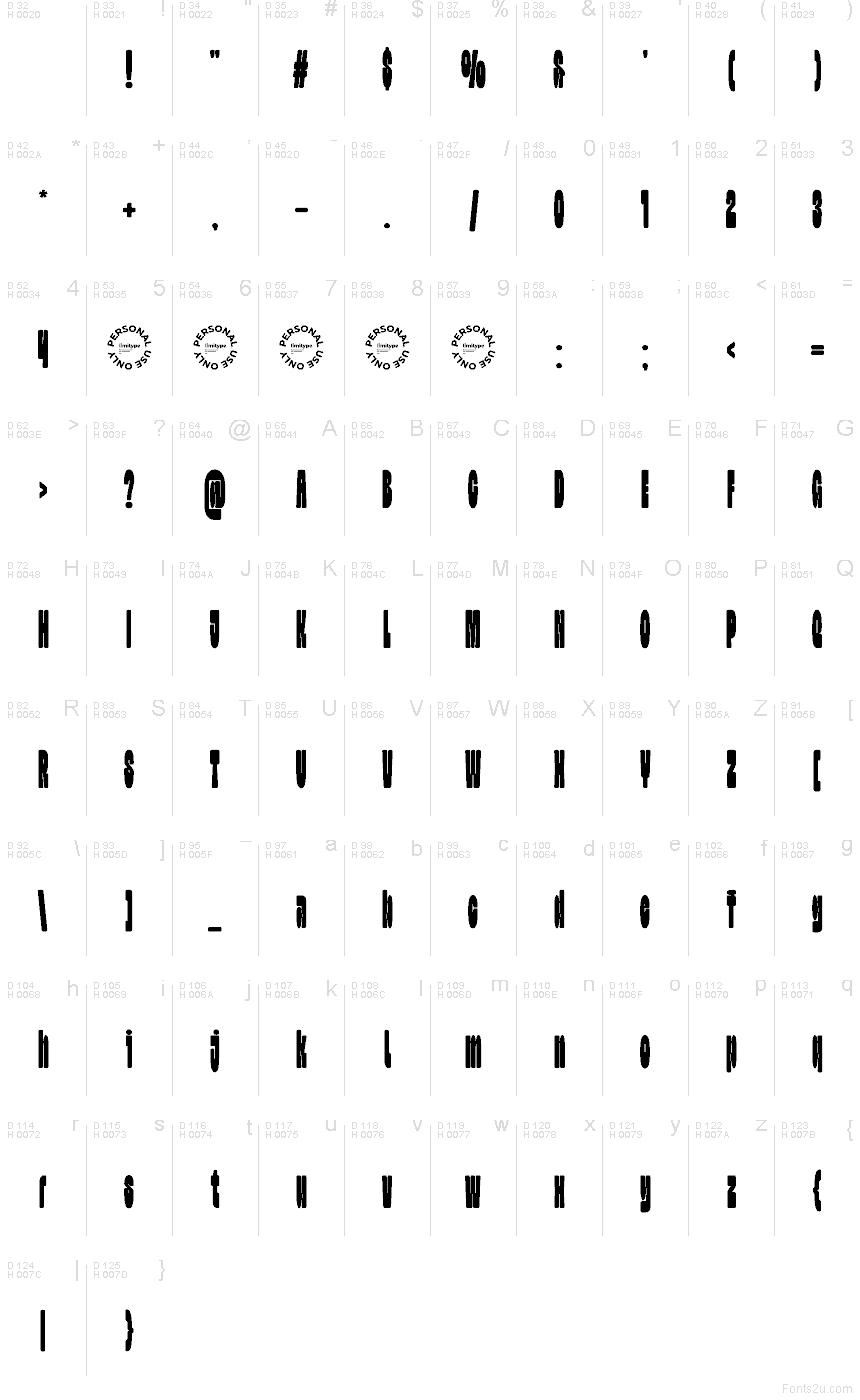
Boldsta Demo Fat
Boldsta Fat font by Limitype is a free ultra-bold display typeface that turns every word into a solid, inky shape. Part of the Boldsta family, its letterforms are thick, rounded, and almost cartoonishly swollen, with tight spacing that makes text feel like a single, sculpted block. The result is a loud, playful presence that reads more like graphic art than simple lettering.
Using Boldsta Fat, headlines and logos hit like a stamp—chunky, confident, and impossible to miss. This free font shines on posters, merch, packaging, event graphics, social media covers, and bold branding where you want maximum visual impact with minimal words. Pair it with a clean sans-serif for small supporting text and keep Boldsta Fat large, letting those heavy curves and compact forms do the talking.